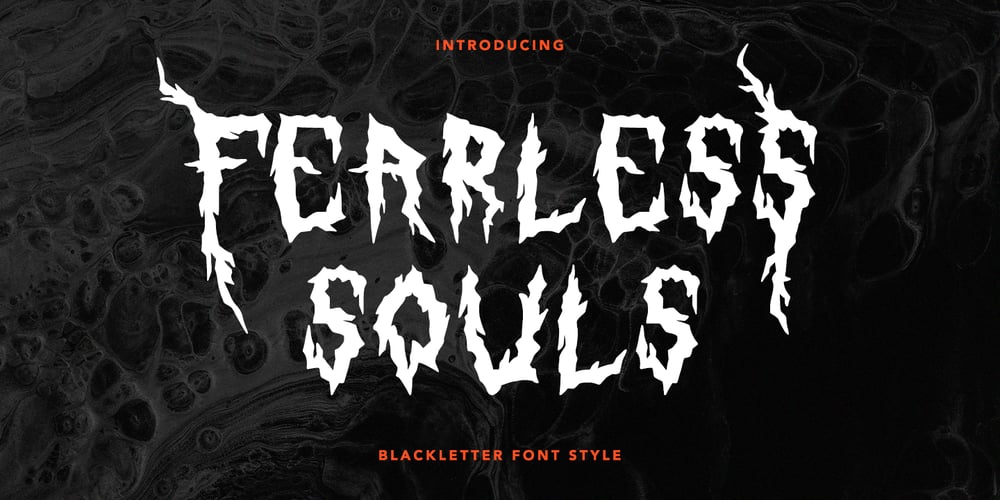
Fearless Souls
Fearless Souls font
Fearless Souls Font Family was designed by Asep Rendi and published by Hatftype. Fearless Souls contains 1 styles and family package options. Fearless Souls – Blackletter Font Style is a display font that is inspired by gothic and horror style because its shape is very unique and is perfect for any project that you will use with this theme.Wild Inferno with opentype features such stylistic alternates, stylistic sets & ligatures good for logotype, poster, badge, book cover, tshirt design, packaging and any more.Features :1.Uppercase & Lowercase 2.Multilingual support 3.Number 4.Symbol 5.Punctuation. 6.Extra Dingbat 7.Support in Mac and Windows OS -Support in design application (photoshop, illustrator, and more).There it is. I really hope you enjoy it. Comments & likes are always welcome and accepted.